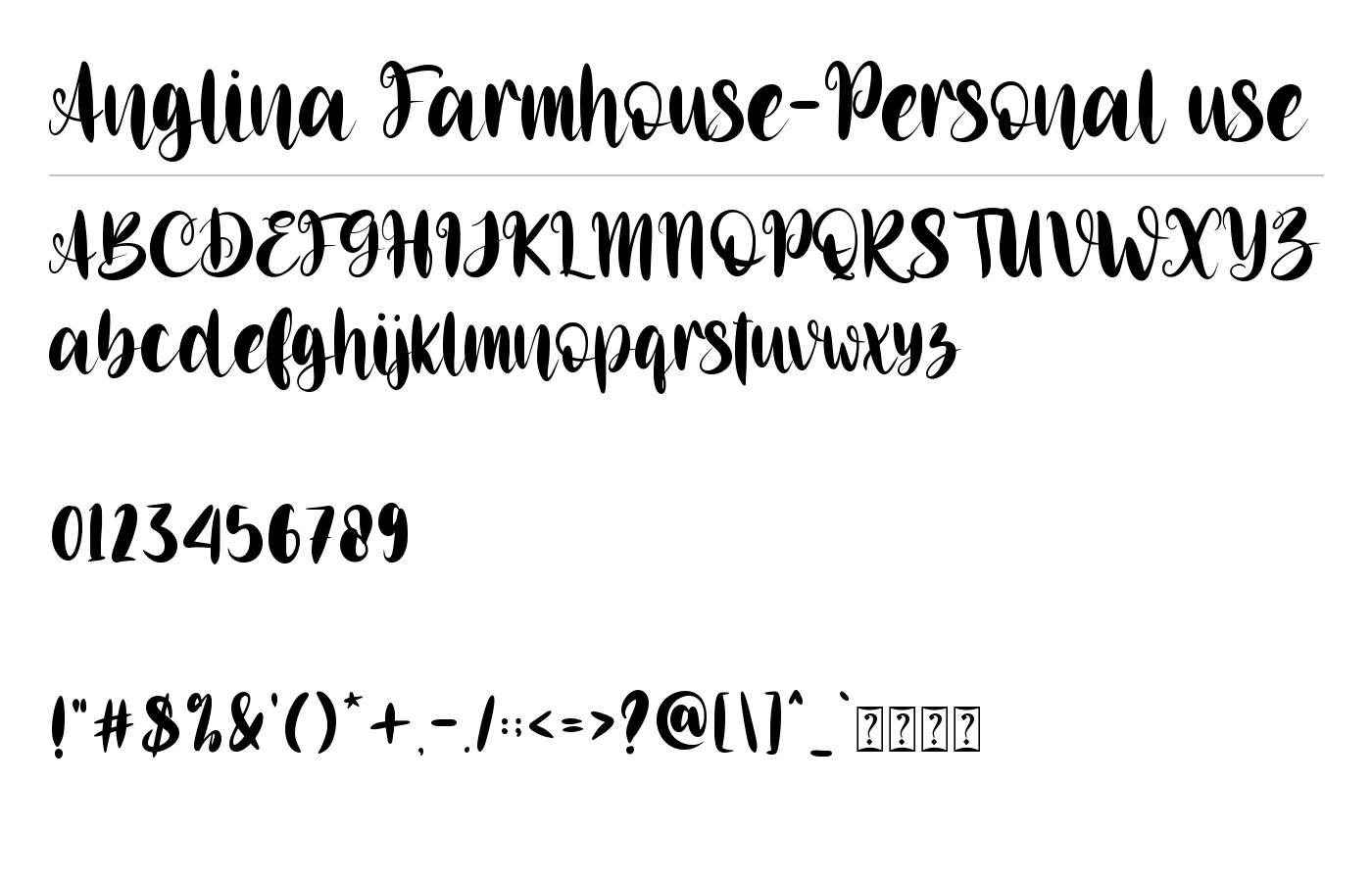
Anglina Farmhouse is a playful and elegant script font with a lively, hand-drawn feel. Its bold, fluid strokes combined with decorative swirls give it a charming, rustic personality perfect for creative, personal projects, inviting logos, and warm, friendly headlines. This font works wonderfully for branding and packaging that seeks a handcrafted, approachable look without sacrificing style.
Anglina Farmhouse-Personal use Font
About Anglina Farmhouse-Personal use Font